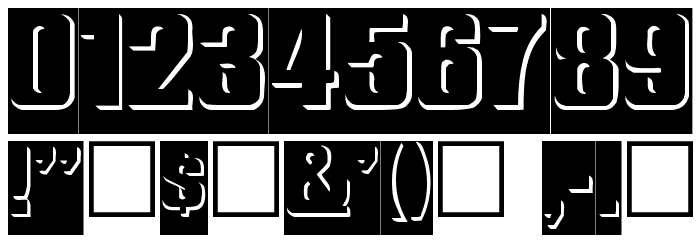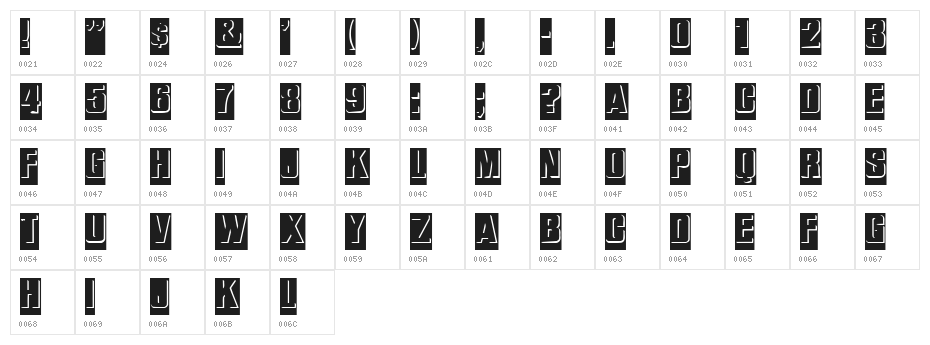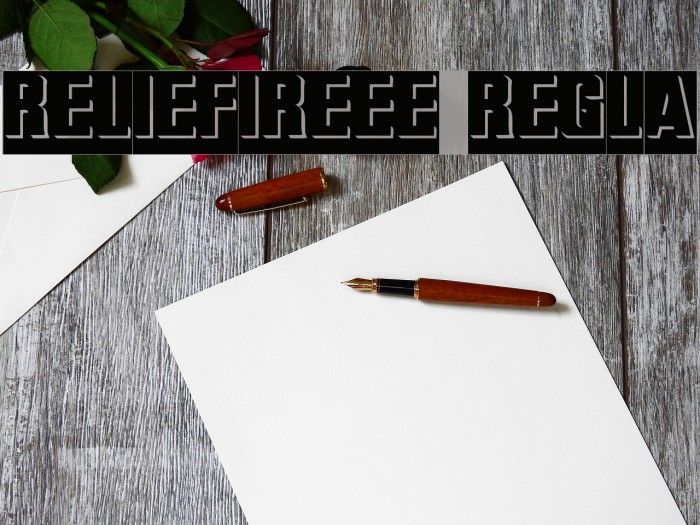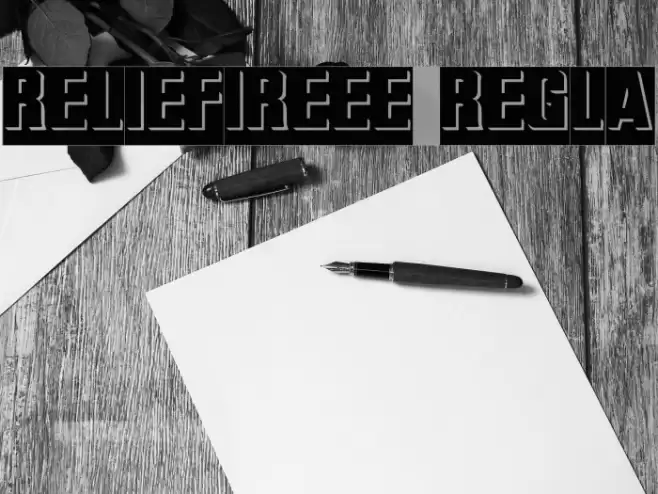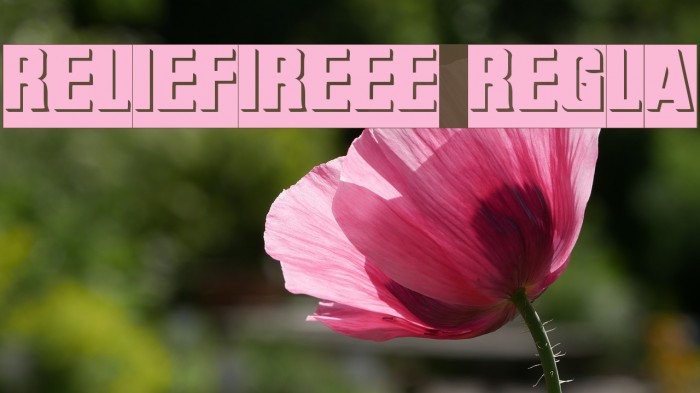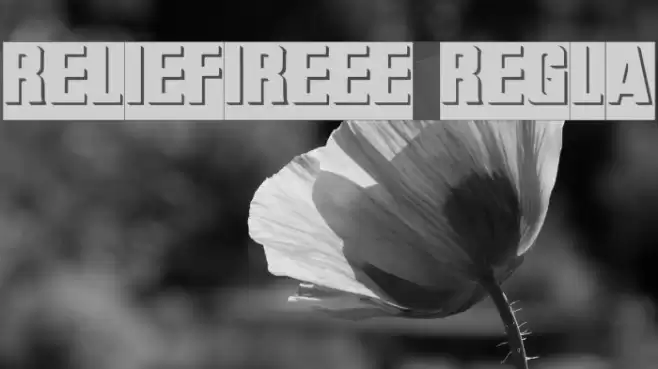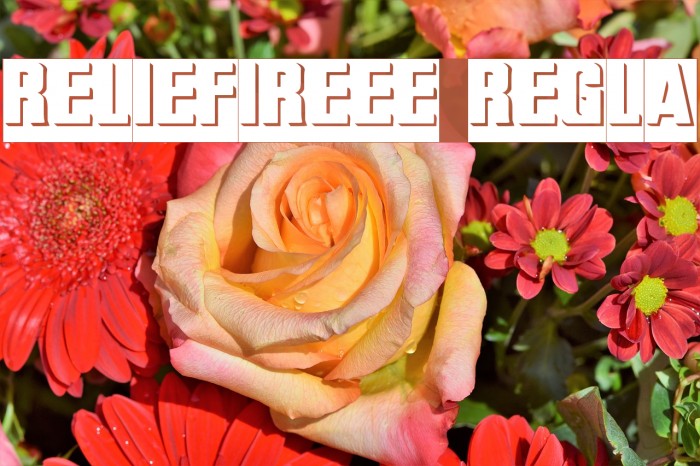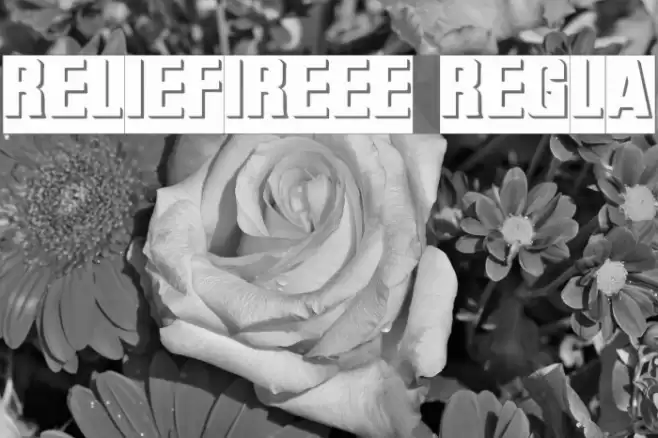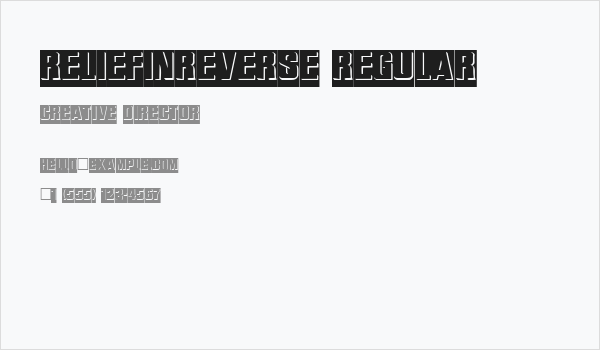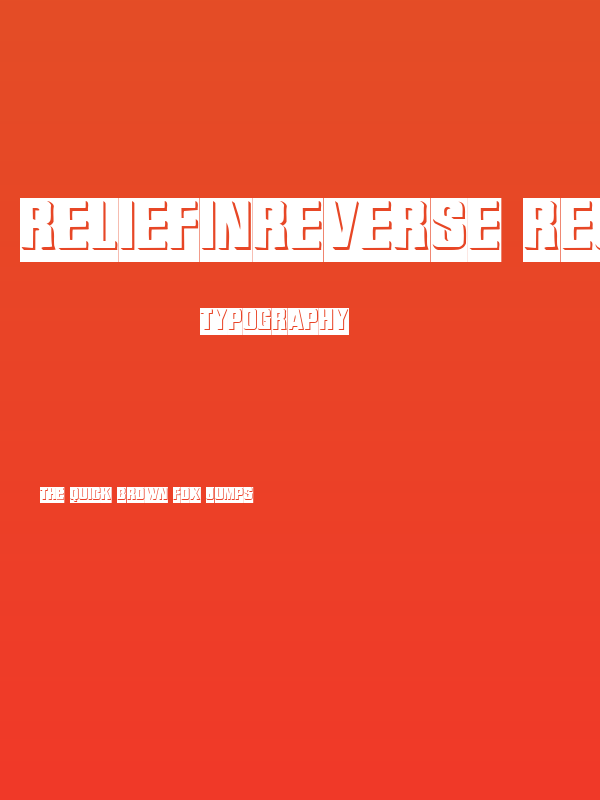
ReliefInReverse Regular Font
ReliefInReverse Regular Description
This font features a bold and striking design with a reverse relief effect, where the characters are outlined and filled with a shadow-like interior. The uppercase and lowercase letters maintain a consistent style, emphasizing a strong geometric structure. The numbers and special characters follow the same aesthetic, ensuring uniformity across all elements. The font's unique appearance makes it stand out, with a modern yet slightly retro vibe, suitable for eye-catching designs.
| Proposed Projects | Ideal for posters, logos, and branding projects that require a bold statement. It can also be used for headlines in magazines or websites that aim to capture attention. |